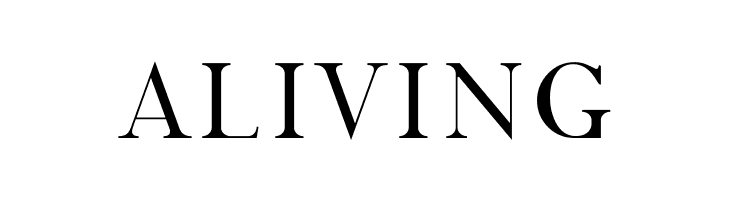
Daylight&Moonlight 2_PersonalUseOnly Font
- Font: Daylight&Moonlight 2_PersonalUseOnly
A classic serif font with elegant strokes and high contrast.
( Fonts by Harold Lohner - www.haroldsfonts.com )